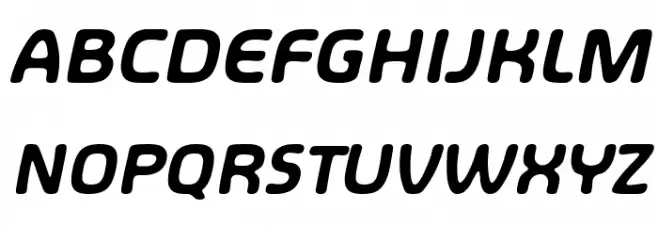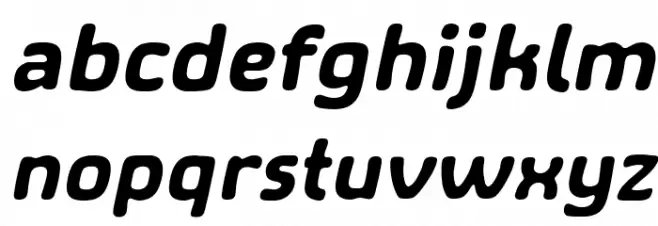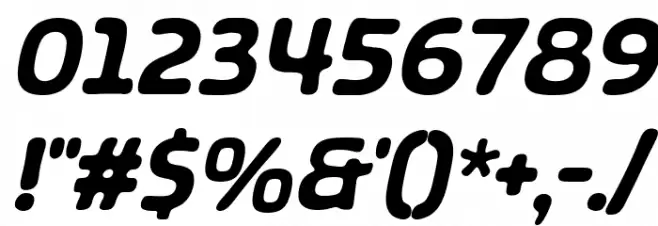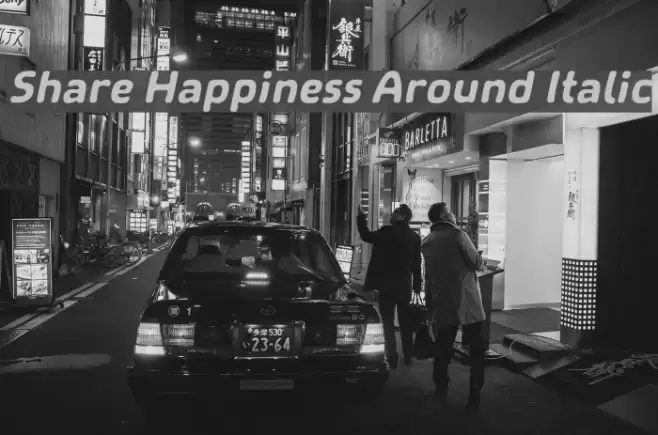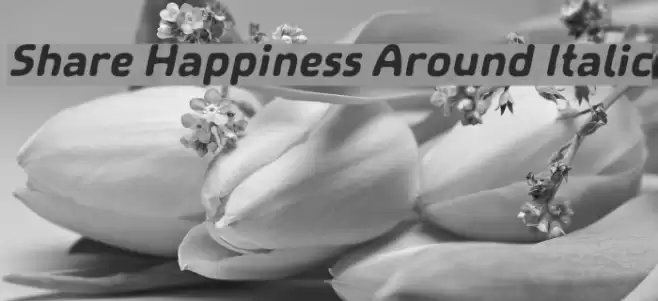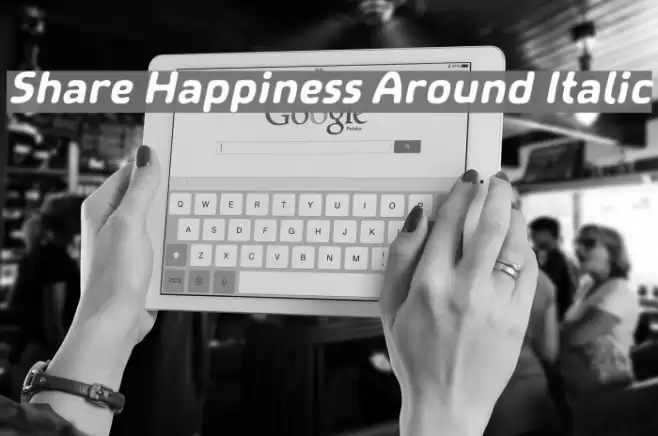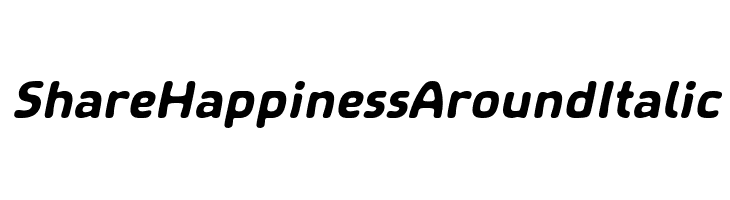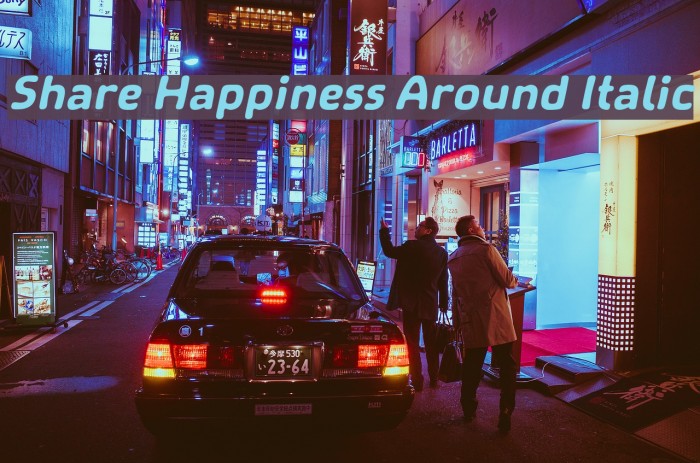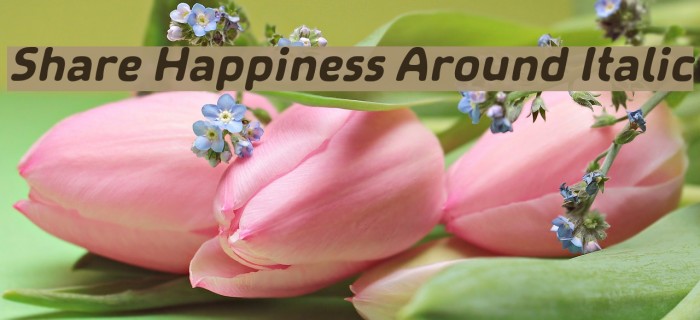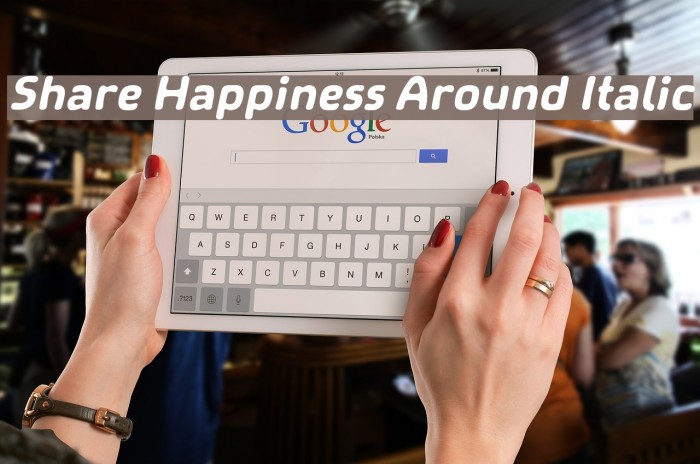
Share Happiness Around Italic
This font features a playful and rounded style with a slight italic slant, giving it a dynamic and friendly appearance. The characters are bold and have a consistent stroke width, contributing to a uniform look across all letters and numbers. The rounded edges and smooth curves enhance its approachable and informal feel, making it suitable for casual and fun projects. The font maintains good readability with its clear letterforms and balanced spacing, ensuring that each character stands out distinctly. The inclusion of special characters and numbers complements the alphabet, providing versatility for various design needs.
A playful, rounded, and italic font with bold strokes and smooth curves.
- Proposed Projects: Ideal for children's books, playful branding, casual invitations, and social media graphics.
- Overall Style: Playful
- Use Case: Headlines, Logos, Casual Text